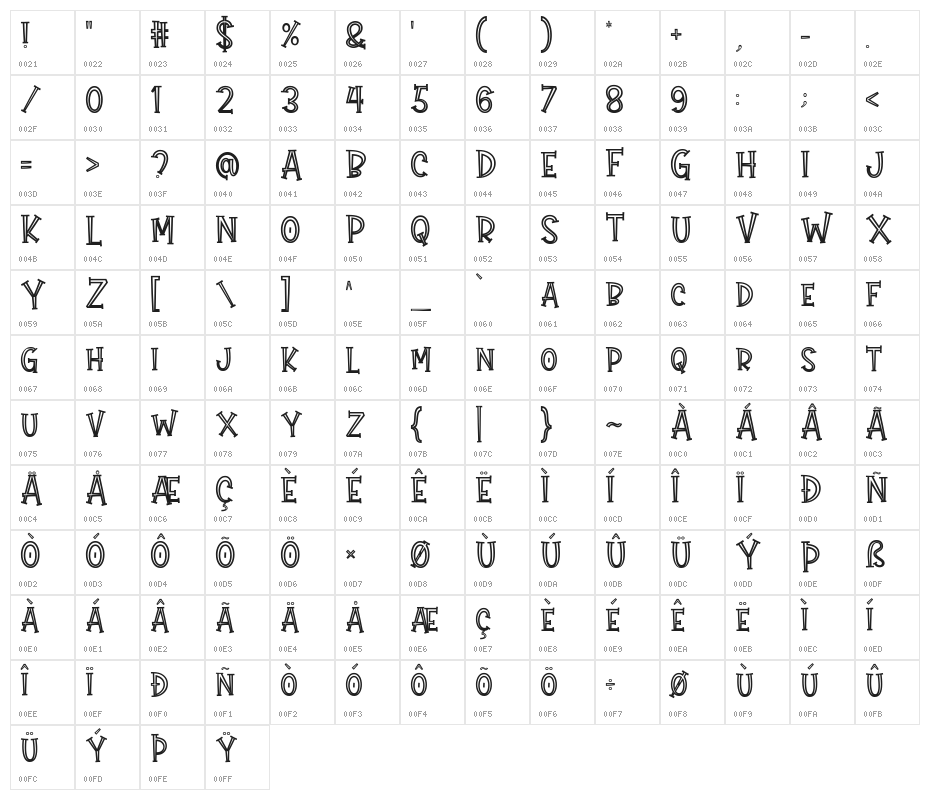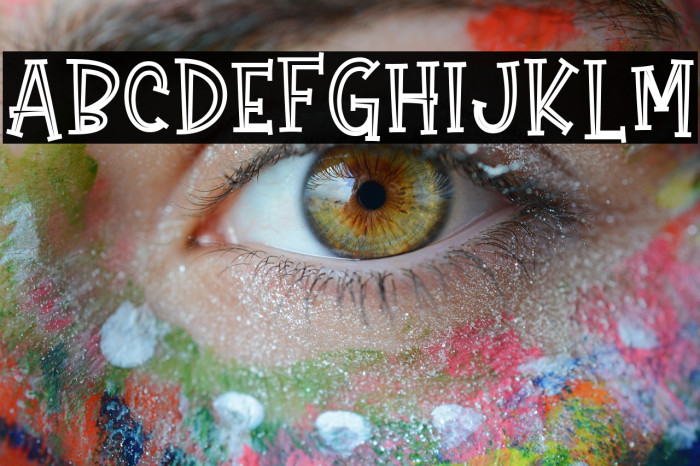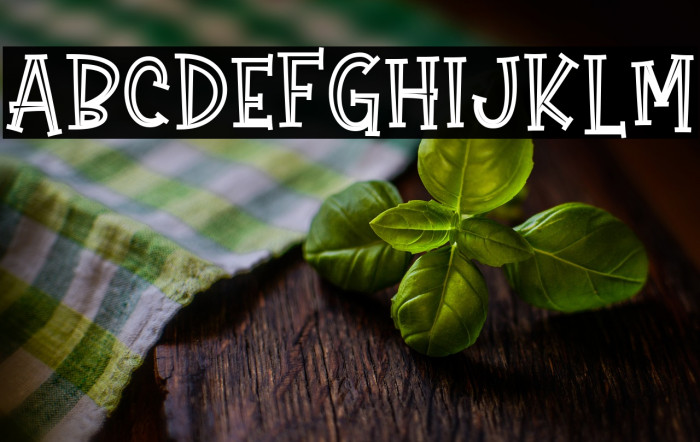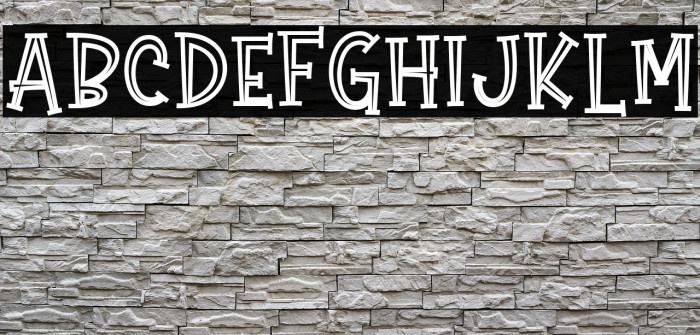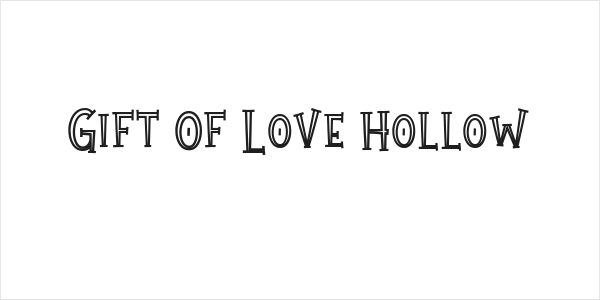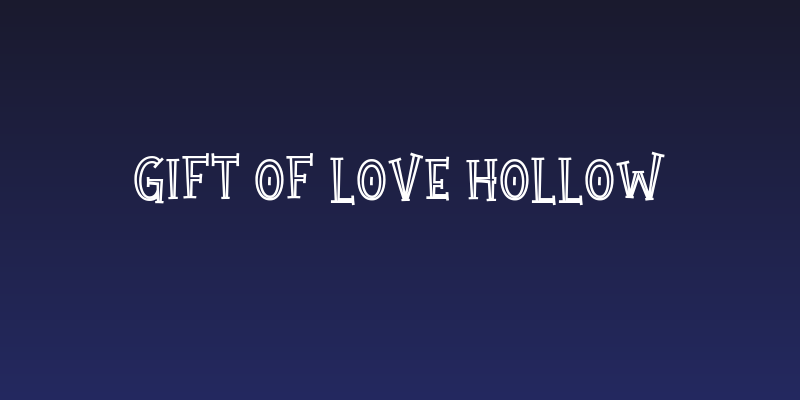
Gift Of Love Hollow Font
Gift Of Love Hollow Description
This font features a playful and whimsical style with hollowed-out characters that add a unique touch to any design. The uppercase and lowercase letters maintain a consistent width, giving a balanced appearance. The numbers and special characters follow the same hollow design, ensuring uniformity across all elements. The font's decorative nature makes it ideal for projects that require a fun and engaging aesthetic. Its bold strokes and hollow interiors create a striking contrast, making it stand out in headlines or titles.
| Proposed Projects | Ideal for children's book covers, playful posters, greeting cards, and creative branding. |